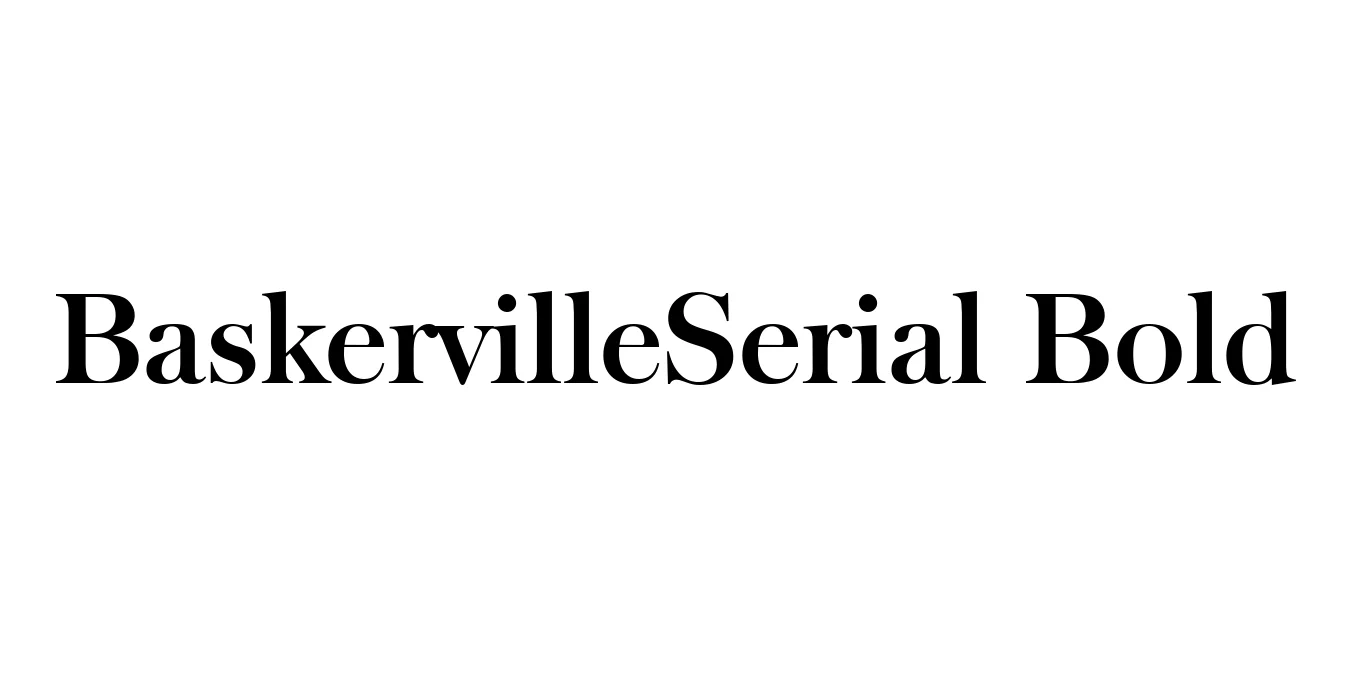
BaskervilleSerial Bold
Designed by John Baskerville (Original), SoftMaker (Digital version)
BaskervilleSerial Bold is a robust digital interpretation of the legendary typeface originally created by John Baskerville in the mid-18th century. Representing the pinnacle of the Transitional serif style, this font bridges the gap between Old Style and Modern faces. The 'Serial' variant specifically optimizes the traditional high-contrast strokes and sharp serifs for modern digital printing and screen display, ensuring that the bold weight maintains clarity while conveying a sense of historical authority and elegance.
As a hallmark of British typography, this bold iteration is characterized by its wide proportions and vertical stress. It was designed to improve the legibility of printed works through its crisp edges and distinctive features, such as the open tail of the 'g' and the wide apex of the 'A'. Whether used in book publishing or high-end branding, BaskervilleSerial Bold remains a timeless choice for designers seeking to evoke a sophisticated and scholarly atmosphere in their digital or print projects.
BaskervilleSerial Bold Best Uses
Perfect for book covers, magazines, and newspapers where a sense of tradition and authority is required.
Excellent for luxury logos and corporate identities that aim for a timeless, prestigious look.
The bold weight makes it an ideal choice for high-impact titles in academic or formal contexts.
Highly effective for menus, invitations, and certificates due to its elegant and formal structure.